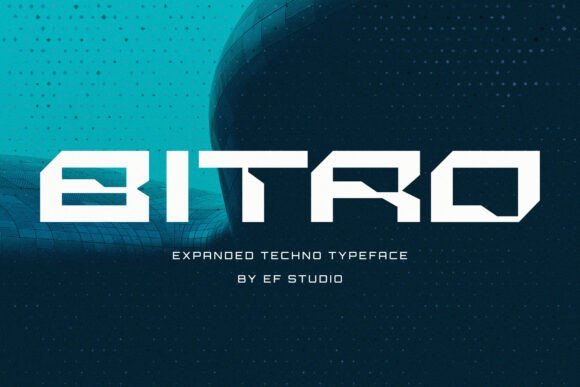
The Future of Typography: Unveiling the Bitro Font
Have you ever stared at a futuristic movie poster or a cutting-edge tech website, and felt a rush of excitement and awe? For designers and creatives, that’s the magic of typography in action. The right font can transport us to new worlds, evoke emotions, and make a lasting impression. Today, we’re thrilled to introduce you to the Bitro Font, a game-changing display font that’s about to revolutionize the way you communicate your brand’s message.
This sleek and modern typeface is designed to make a bold statement, with its bold, geometric structure and unique cut-out details. Whether you’re working on a tech-driven project, a gaming campaign, or a sci-fi visual, the Bitro Font is the perfect tool to help you stand out from the crowd. Its wide, clean shapes and minimalist angles make it a valuable asset for designers who want to create a powerful and modern visual identity.
- Unique Characteristics: The font features a unique blend of modern and vintage elements, with clean lines, geometric shapes, and subtle textures, making it ideal for creative and innovative designs.
Bitro Font Review
Overall, I think Bitro Font is a decent choice for designers looking for a modern sans-serif font. Here’s what works well for me:
- ✨ Clean lines and minimalistic design make it perfect for digital interfaces
- ✨ Good legibility, even at smaller font sizes
- ✨ Supports a wide range of languages, including many non-Latin scripts
However, I do have some concerns:
- ⚠️ Limited font weights (only 4) may not be enough for designers who need more flexibility
- ⚠️ Some users may find the font too generic or unremarkable
- ⚠️ The font doesn’t come with a bold version, which might be a drawback for certain design applications
Overall, Bitro Font is a solid choice for designers who want a clean and modern sans-serif font. While it has some limitations, its strengths make it a viable option for digital projects. I would recommend it to designers who need a font that’s easy to read and versatile.
Bitro Font is suitable for a variety of design projects, including:
- Infographics and data visualizations
Q: What is the recommended font size for using Bitro Font?
The recommended font size for using Bitro Font is between 10pt and 24pt. This range provides optimal legibility and readability for most applications, including body text, headings, and titles. However, feel free to experiment with different font sizes to find the best fit for your design project.